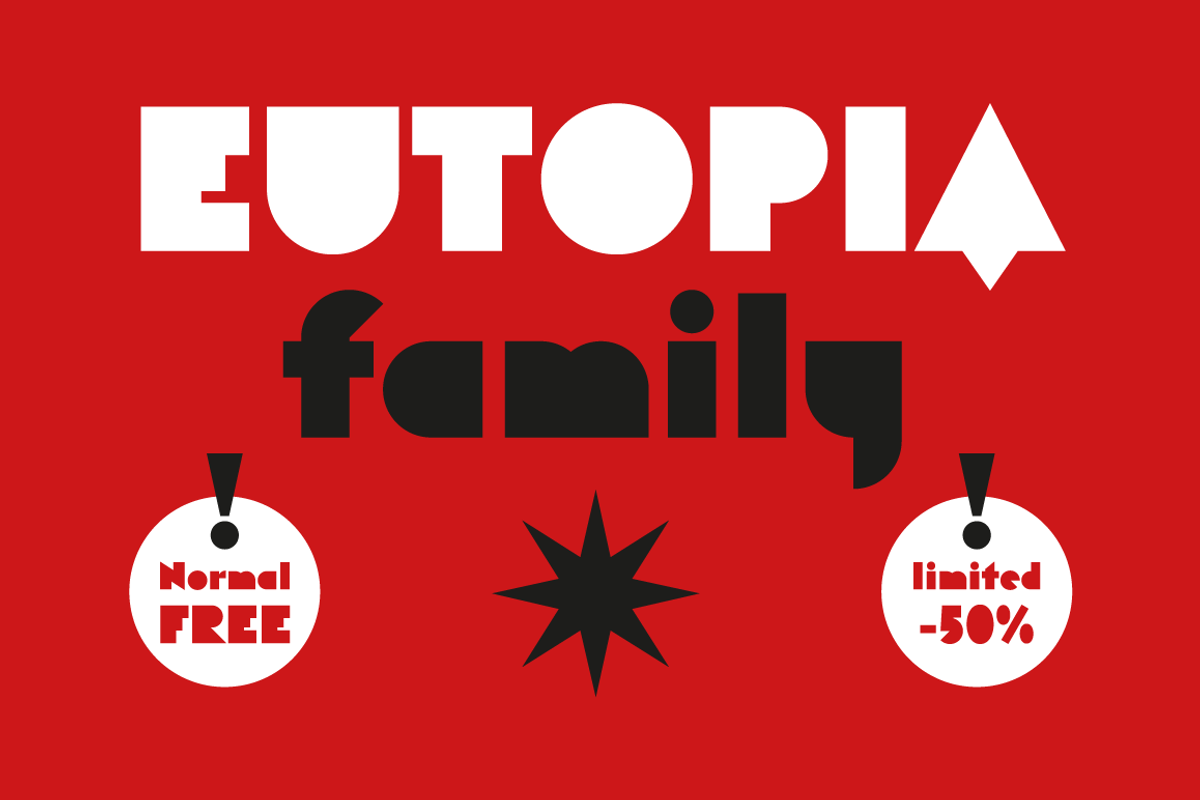
Step into a world of design possibilities with the Eutopia Typeface (7 Fonts) Free Download — a versatile and thoughtfully crafted font family that offers creative freedom through seven distinct styles. Whether you're building bold headlines, elegant logos, modern packaging, or editorial layouts, Eutopia adapts beautifully to every visual voice.
From sleek and minimal to expressive and artistic, each variation in the Eutopia collection brings its own flair, allowing you to mix, match, and layer for dynamic impact. It's a must-have toolkit for designers who value both aesthetic diversity and cohesive identity.